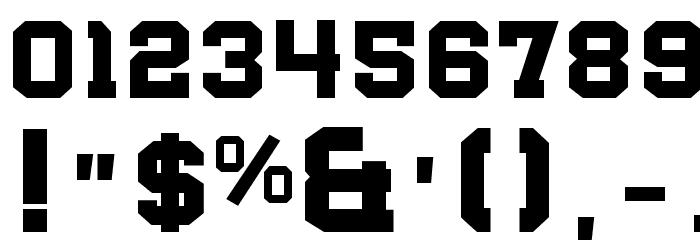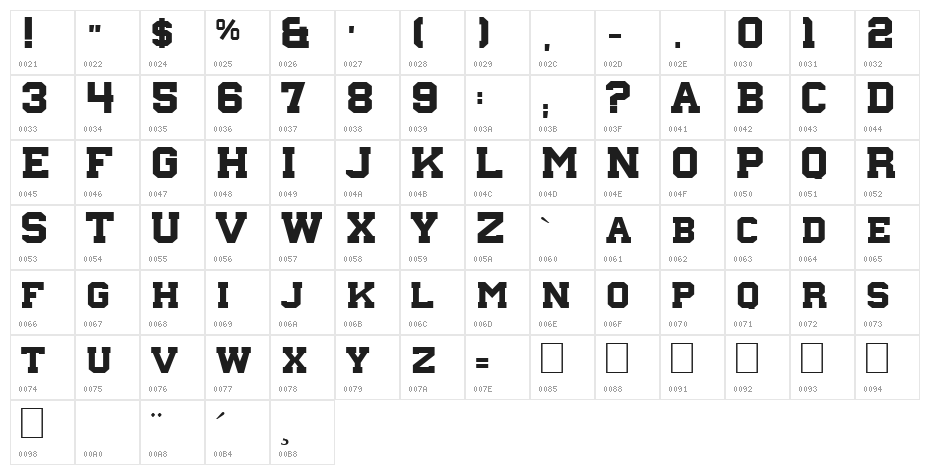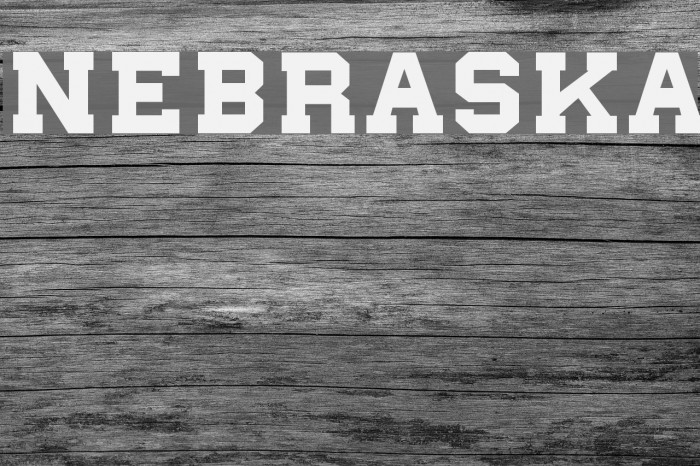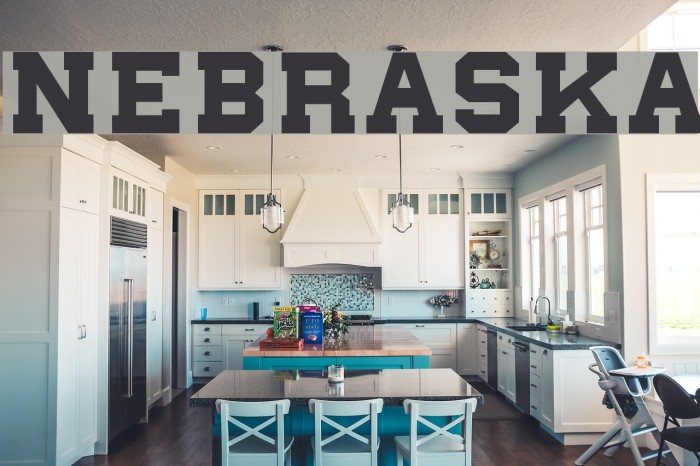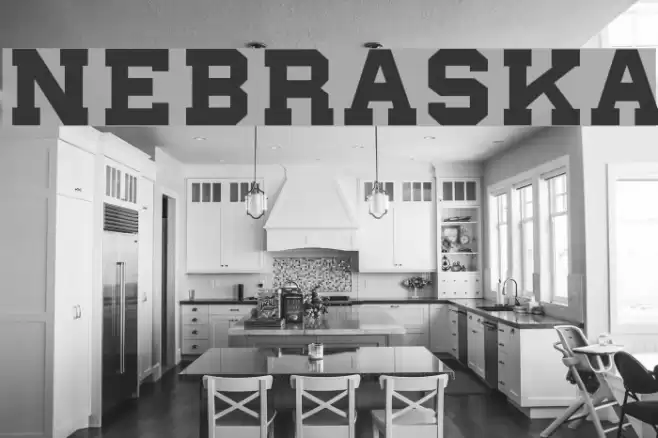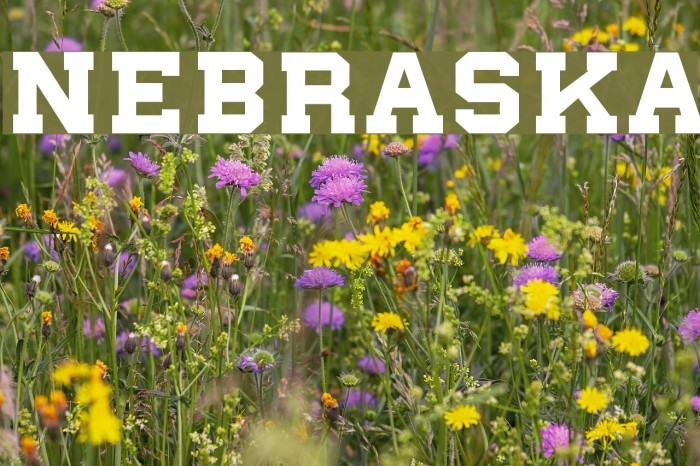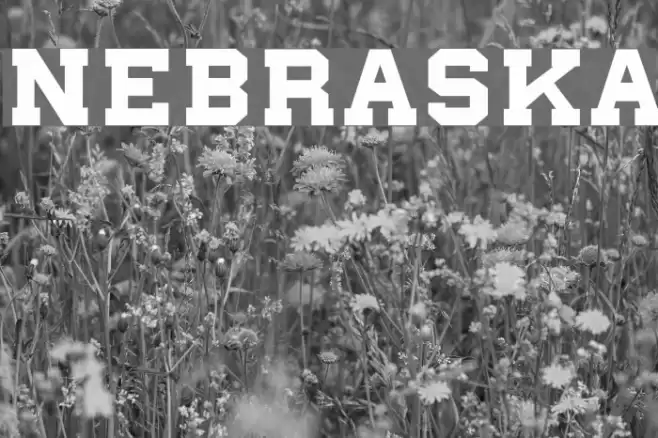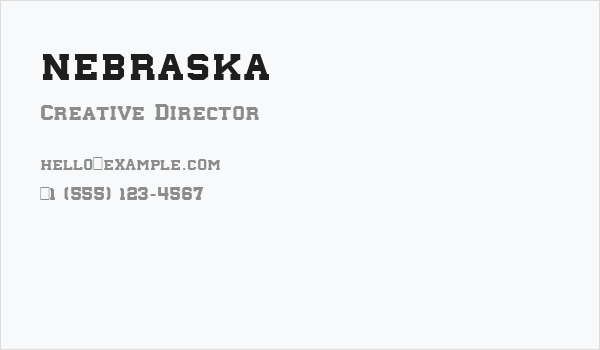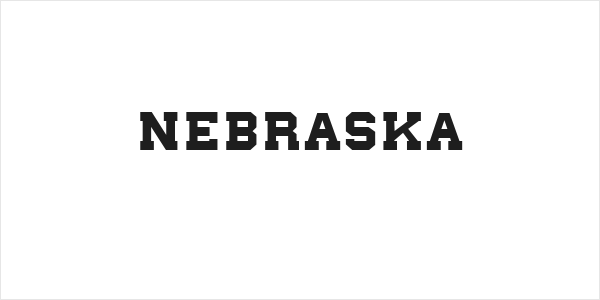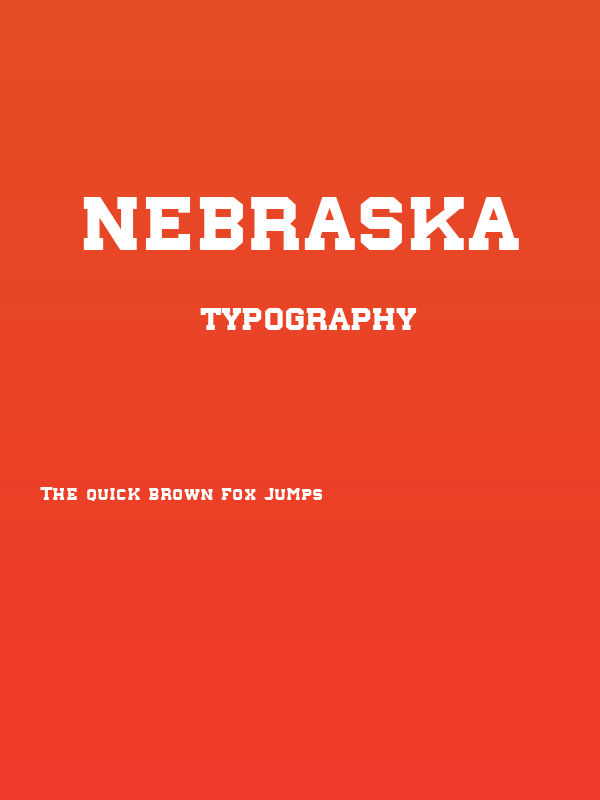
nebraska Font
nebraska Description
This font exhibits a bold and robust design with a strong presence. The characters are blocky and geometric, featuring thick strokes and sharp angles that convey a sense of strength and stability. The uppercase letters are particularly striking, with a uniform height and width that create a cohesive and balanced appearance. The numerals and special characters maintain the same boldness, ensuring consistency across all elements. This font's design is reminiscent of athletic or collegiate styles, making it ideal for projects that require a commanding and confident look.
| Proposed Projects | Ideal for sports branding, posters, headlines, and logos that require a bold and impactful style. |